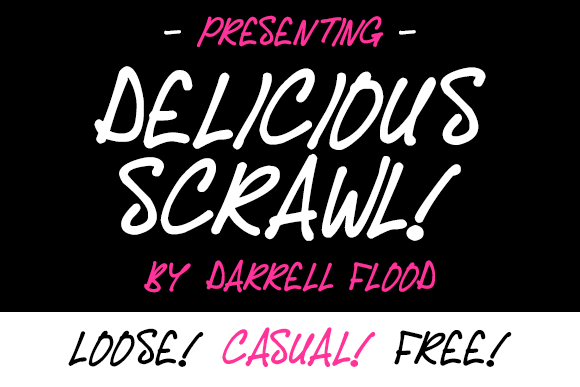
Delicious Scrawl Font
About Delicious Scrawl Font
The Delicious Scrawl is a fast and loose font in a casual hand-written style. Perfect for notes and love letters!